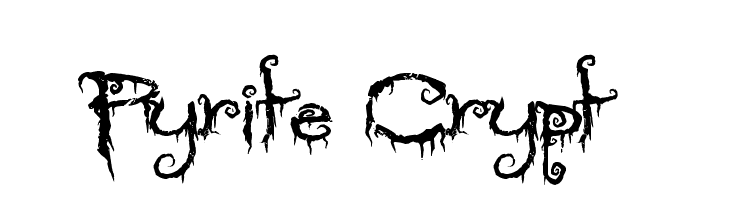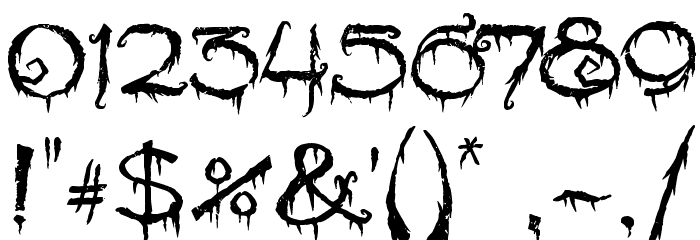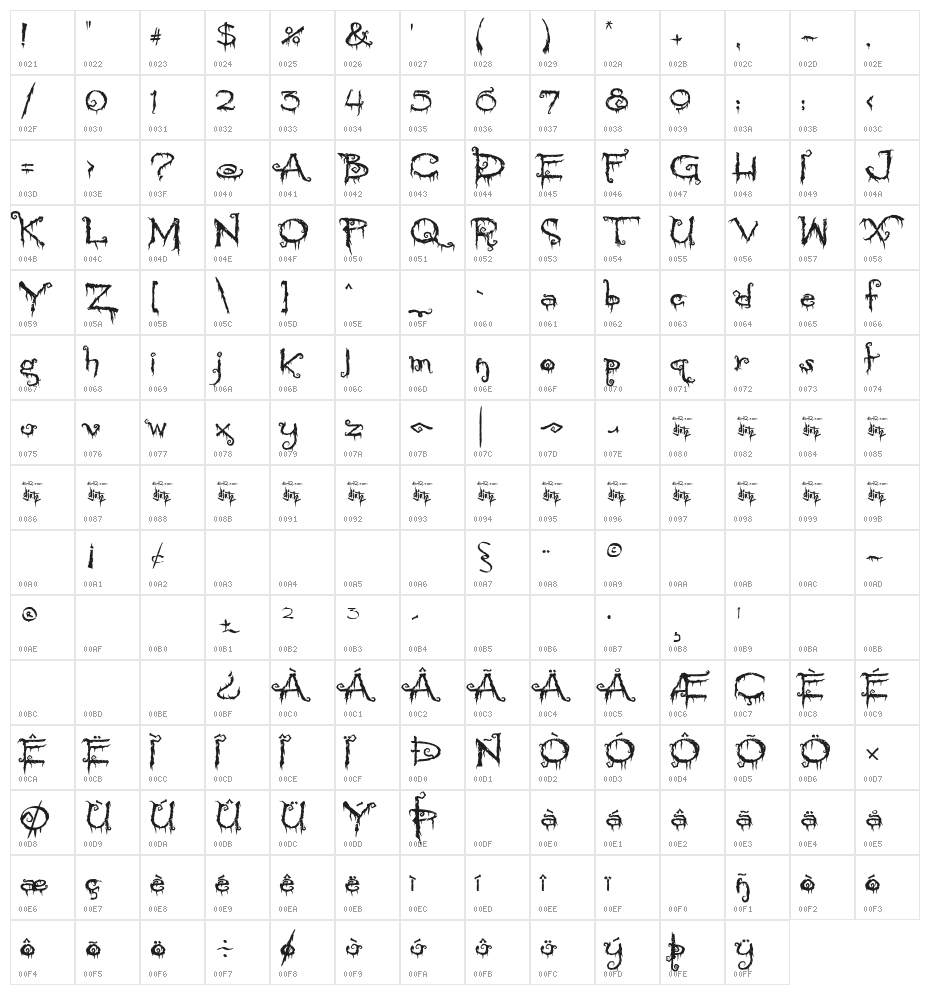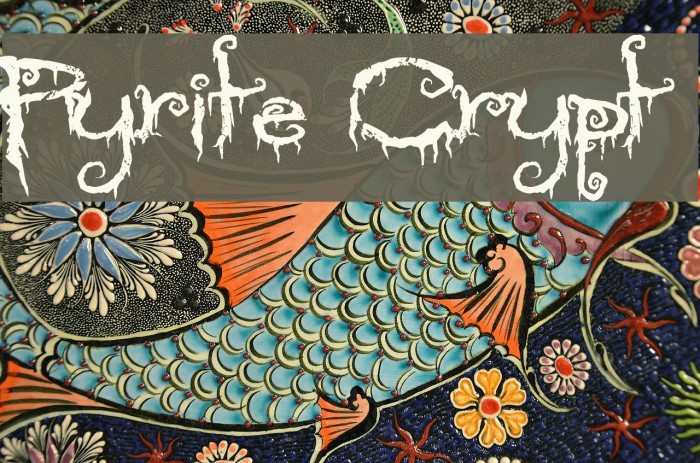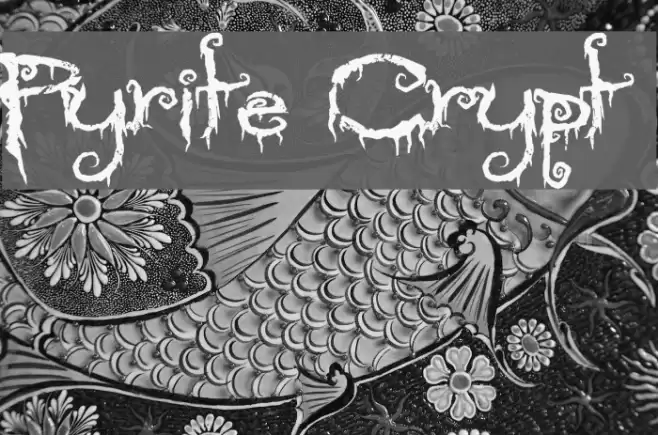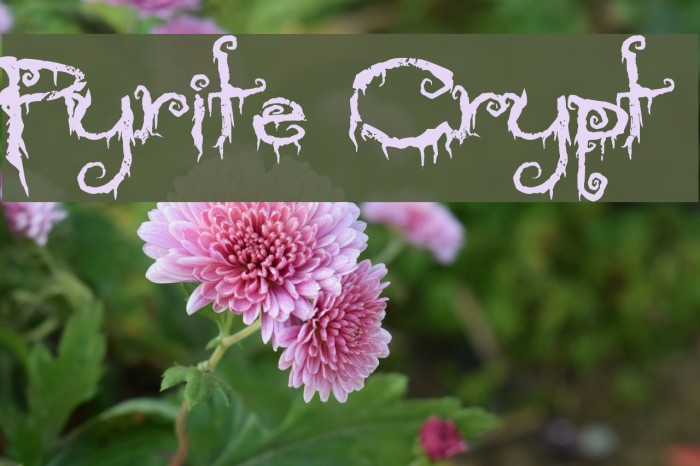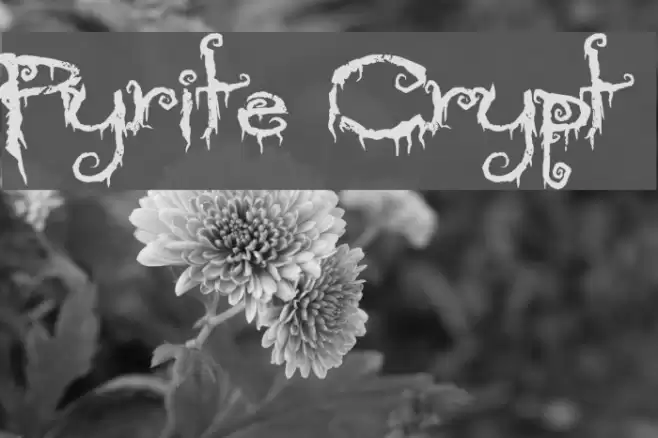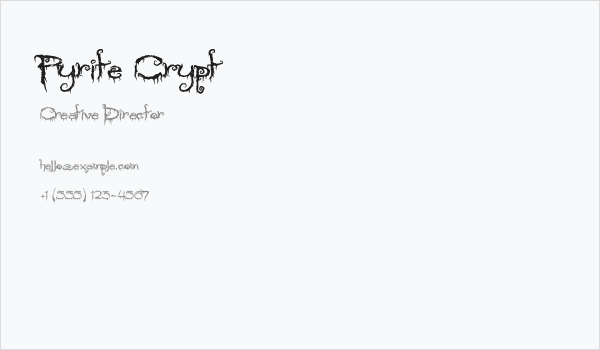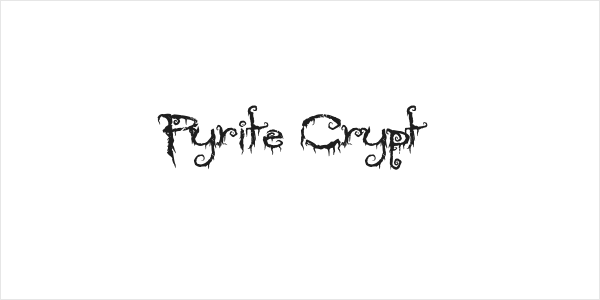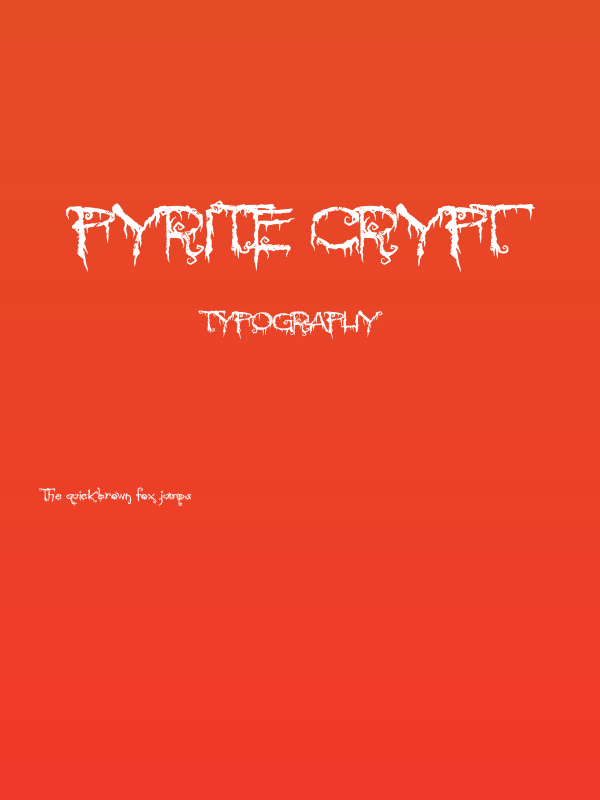
Pyrite Crypt Font
Pyrite Crypt Description
This font features a highly decorative and unique style, characterized by its dripping, organic appearance. Each character appears as if it is melting or oozing, with tendrils and irregular shapes extending from the main strokes. The uppercase and lowercase letters maintain a consistent theme, with the uppercase being slightly more structured while the lowercase offers more fluidity and whimsy. Numbers and special characters follow the same design principles, ensuring a cohesive look across all glyphs. The font's intricate details make it stand out, ideal for projects that require a bold and eye-catching aesthetic.
Use CaseHeadlines, Posters, Logos
Proposed ProjectsIdeal for Halloween-themed designs, horror movie posters, spooky event invitations, and any project requiring a dramatic, eerie touch.